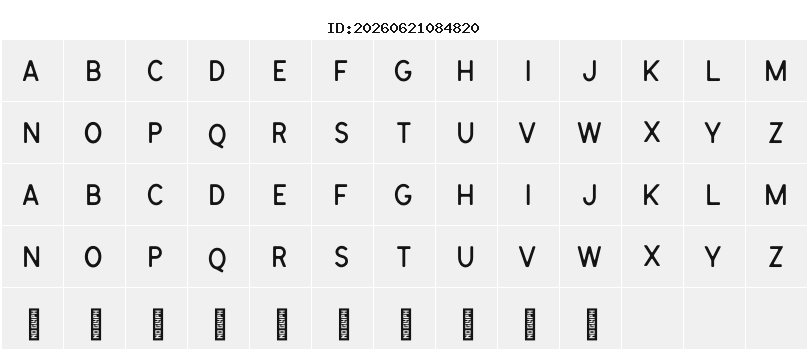
Cymbria Rounded Preview
• Font Name: Cymbria Rounded
• Full Font Name: Cymbria Rounded
• Designer: Font Forestry
• Manufacturer: Font Forestry
About Cymbria Rounded.otf
Cymbria Rounded.otf is a modern, elegant sans-serif font designed for ultimate readability and visual harmony. Perfect for branding, headlines, web design, and print materials.